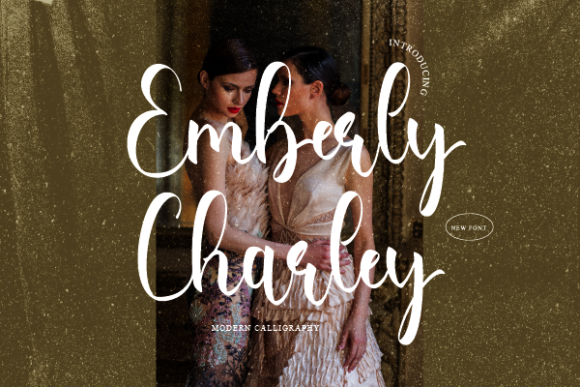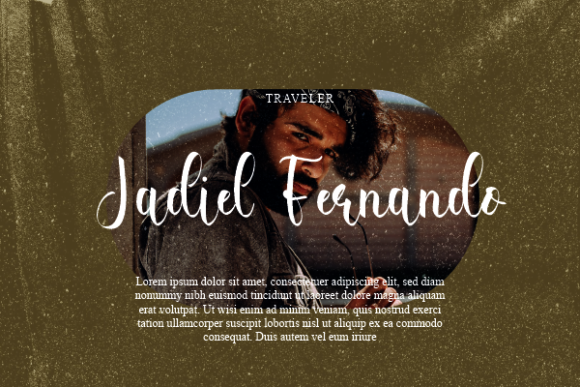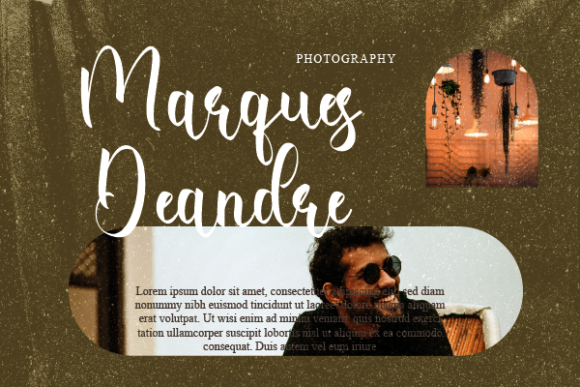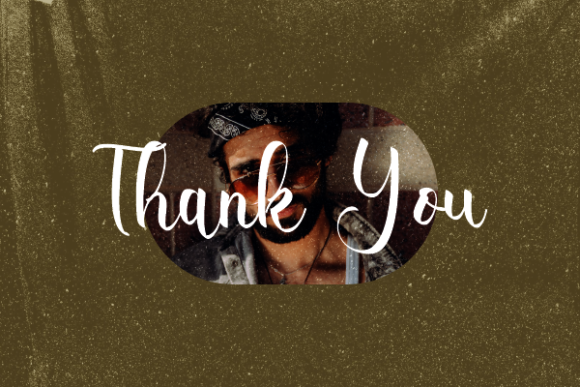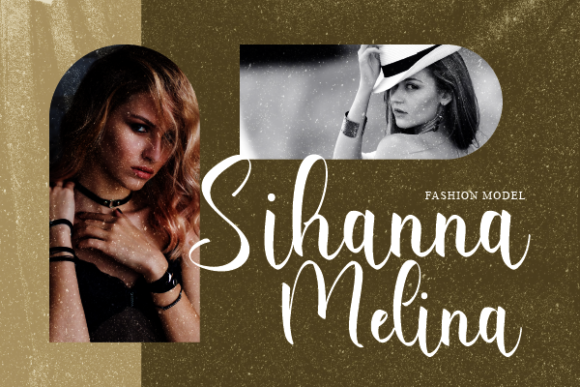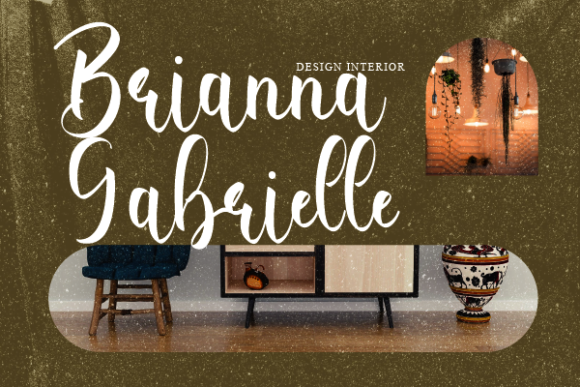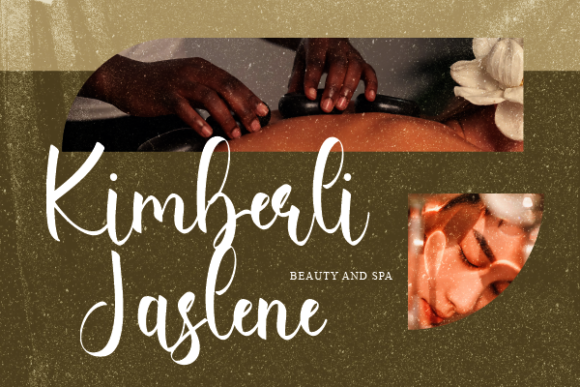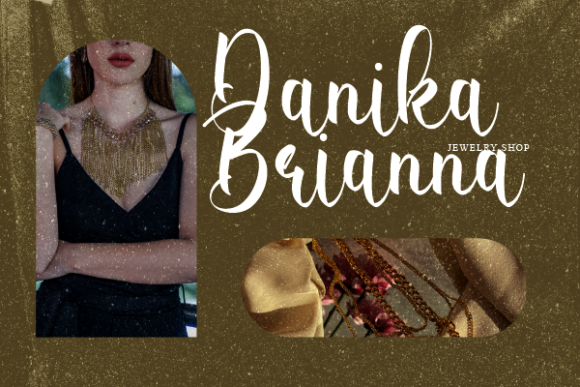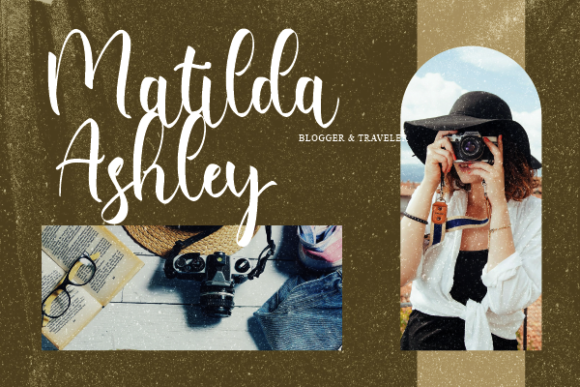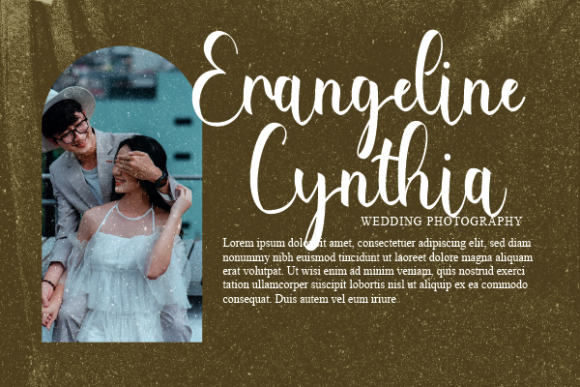
Emberly Charley Font
About Emberly Charley Font
“Emberly Charley” is a thin lettered and graceful script font that exudes elegance and style. Its ravishing appearance makes it a perfect choice for crafting stunning wedding invitations, creating beautiful stationary art, designing eye-catching social media posts, and a wide variety of other projects.
The font’s delicate and graceful letterforms add a touch of sophistication and allure to your designs. Whether you’re working on formal wedding materials, intricate stationery designs, or visually engaging digital content, “Emberly Charley” introduces an air of refinement that elevates your creations.
The font’s versatility allows it to seamlessly adapt to various design contexts. Its thin lettering and graceful script evoke a sense of delicacy and elegance, making it an ideal fit for projects that demand a sophisticated and visually captivating touch. By incorporating “Emberly Charley” into your designs, you infuse them with an element of beauty and visual appeal that resonates with your audience.
In summary, “Emberly Charley” is more than just a font—it’s a creative tool that enhances your designs with its thin, graceful script. Its ability to evoke elegance and its adaptability to different design scenarios make it a valuable asset for designers seeking to create memorable and visually stunning projects, particularly those related to weddings, artistry, and impactful visual communication.